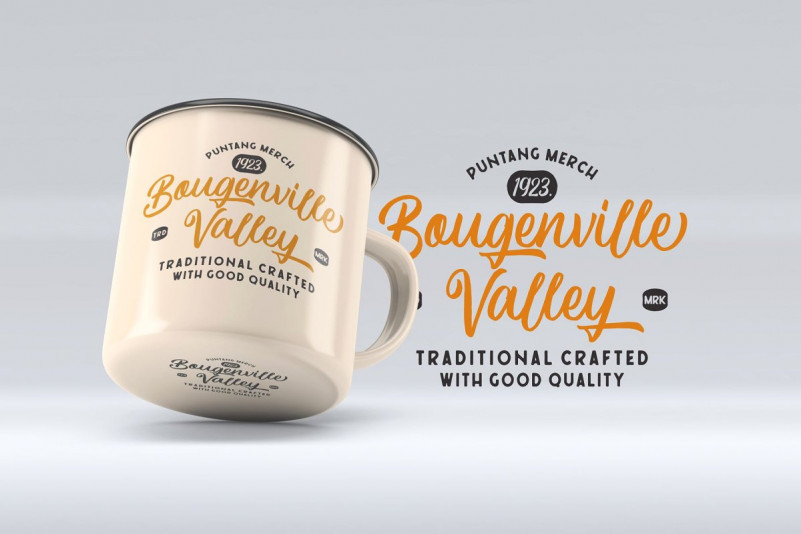
Courtland Handdrawn Font
A new basic handdrawn type. Perfect for creating unique titles and logos with a luxurious and stylish look. Introducing Courtland Font. It’s designed and shared by Garisman Std. Courtland Handdrawn Font – One name originating from Canada greatly inspired the birth of this vintage font. With the opentype feature: standar ligature, stylistic alternate (specifically for lowercase), Stylistic Sets 01 through 06 with different styles in each letter. Courtland is perfect for use in logo types, vintage logos, posters, labels, packaging, headlines, t-shirts and other designs.